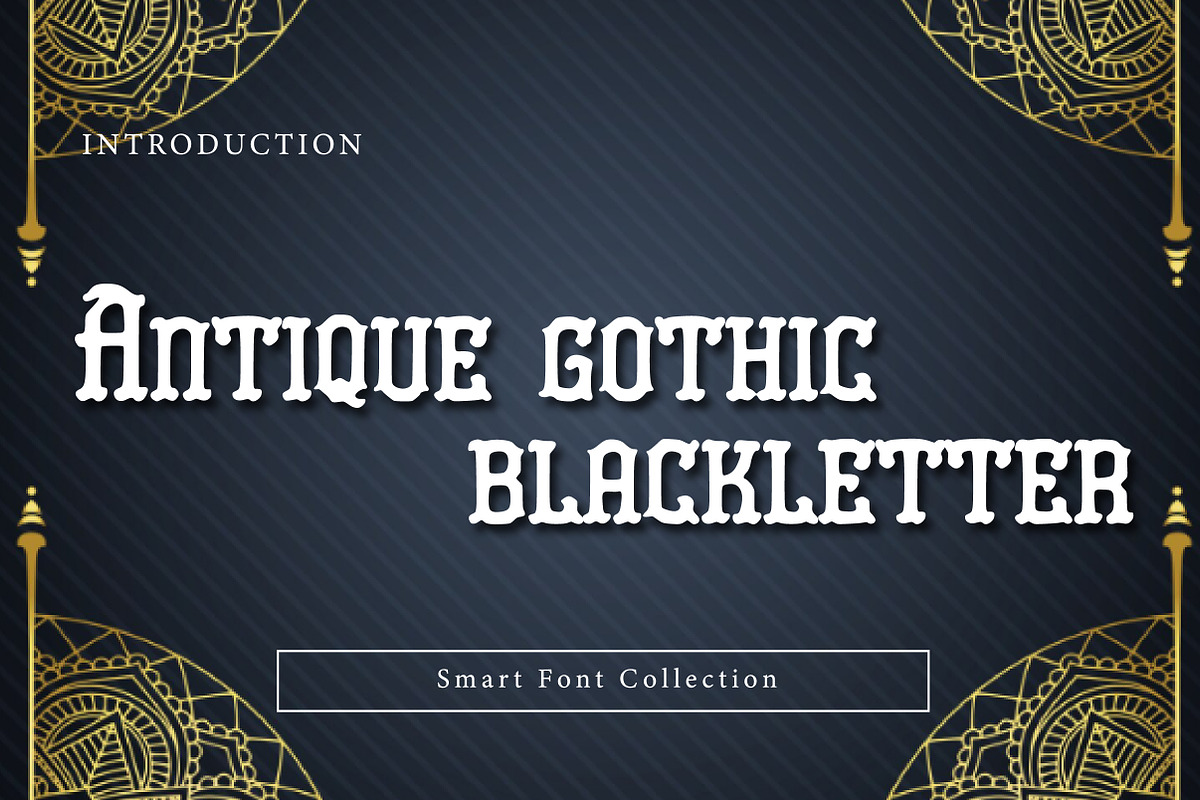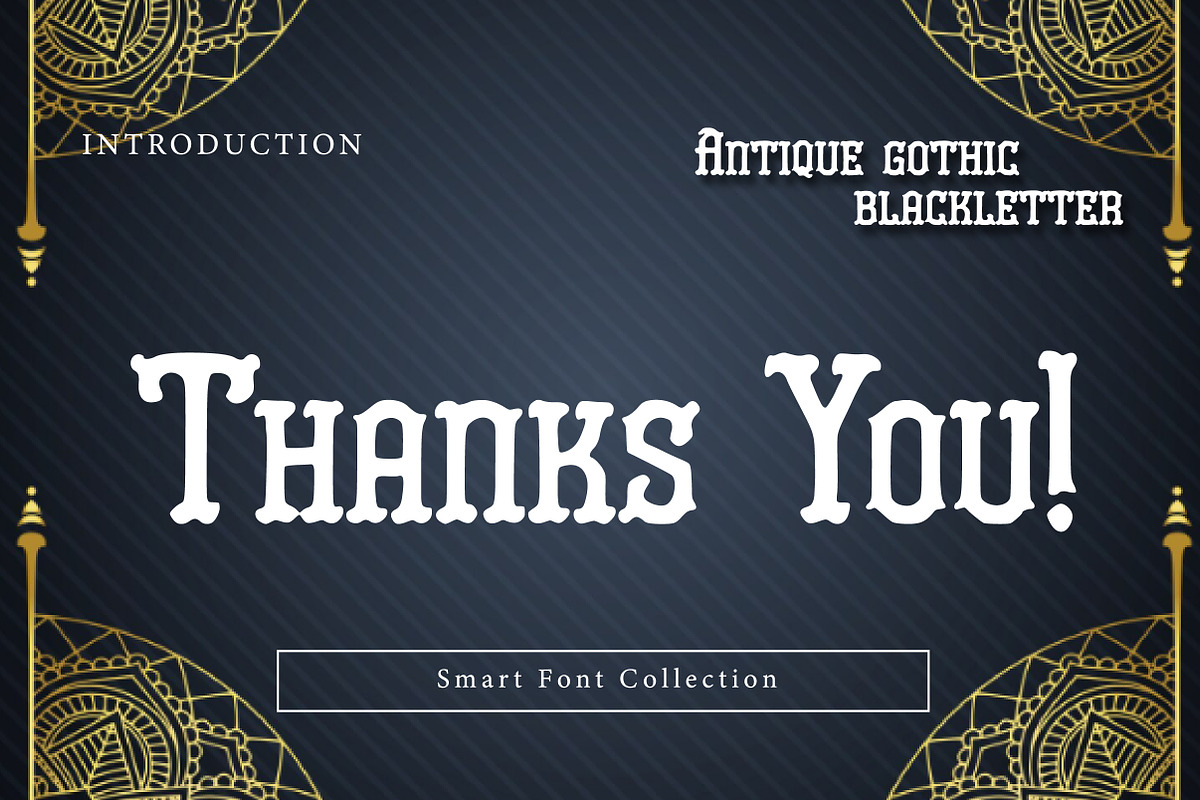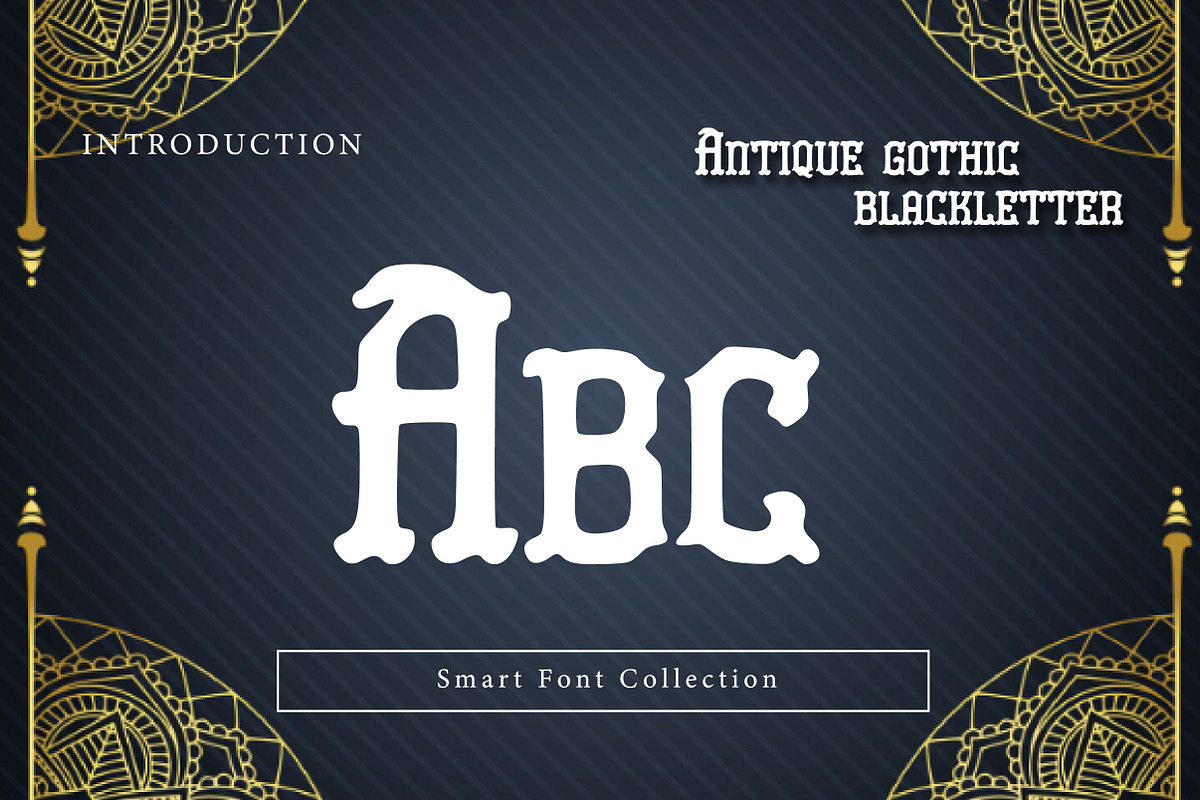
Antique gothic blackletter
Antique Gothic Blackletter is a bold and decorative display typeface inspired by medieval manuscript lettering and classic Old English typography. It features sharp, angular strokes, strong vertical rhythm, and ornate details that give it a powerful historical and dramatic presence. This font is ideal for logos, headlines, posters, album covers, branding, and designs that need a vintage, gothic, or traditional aesthetic.